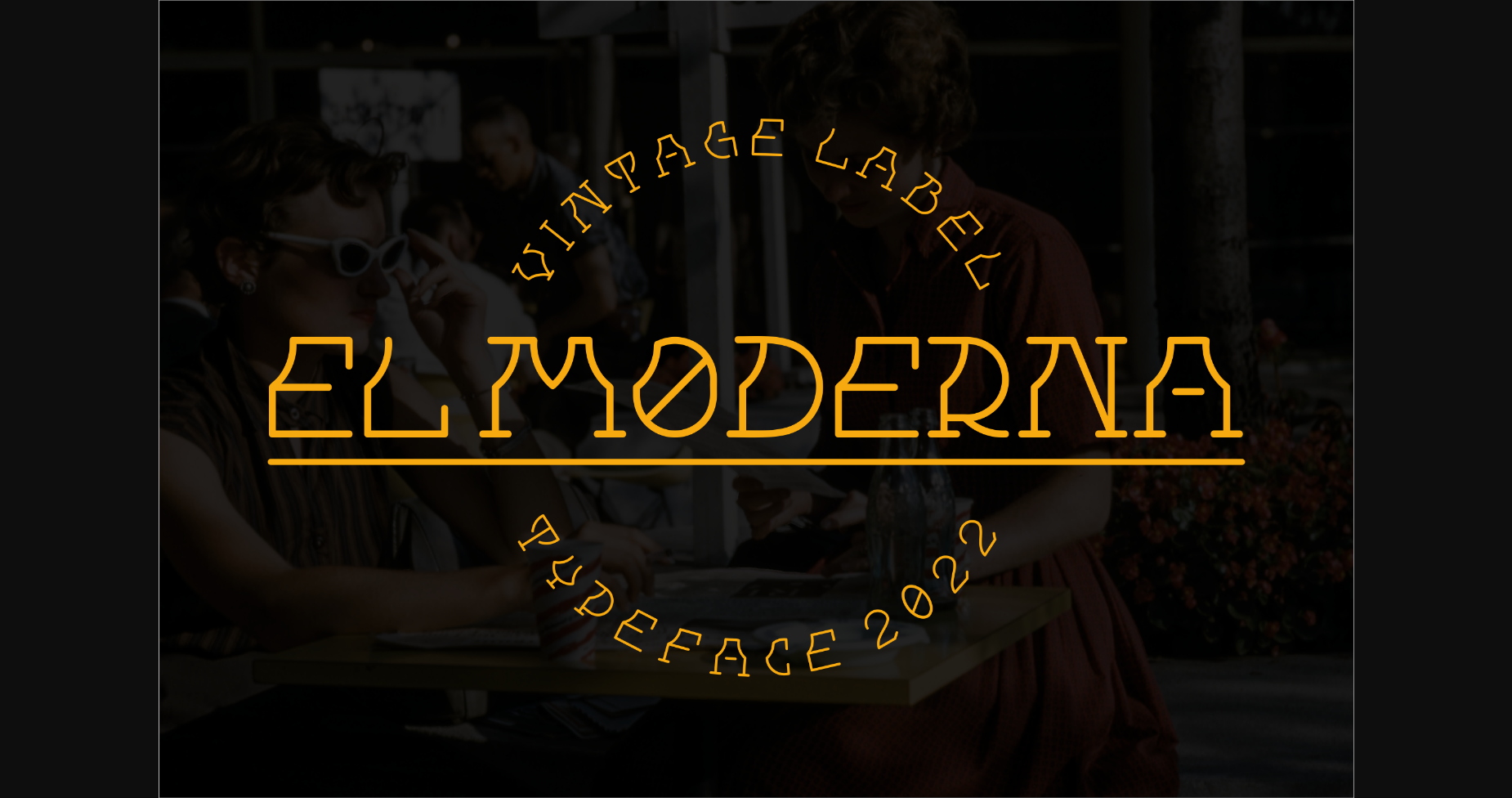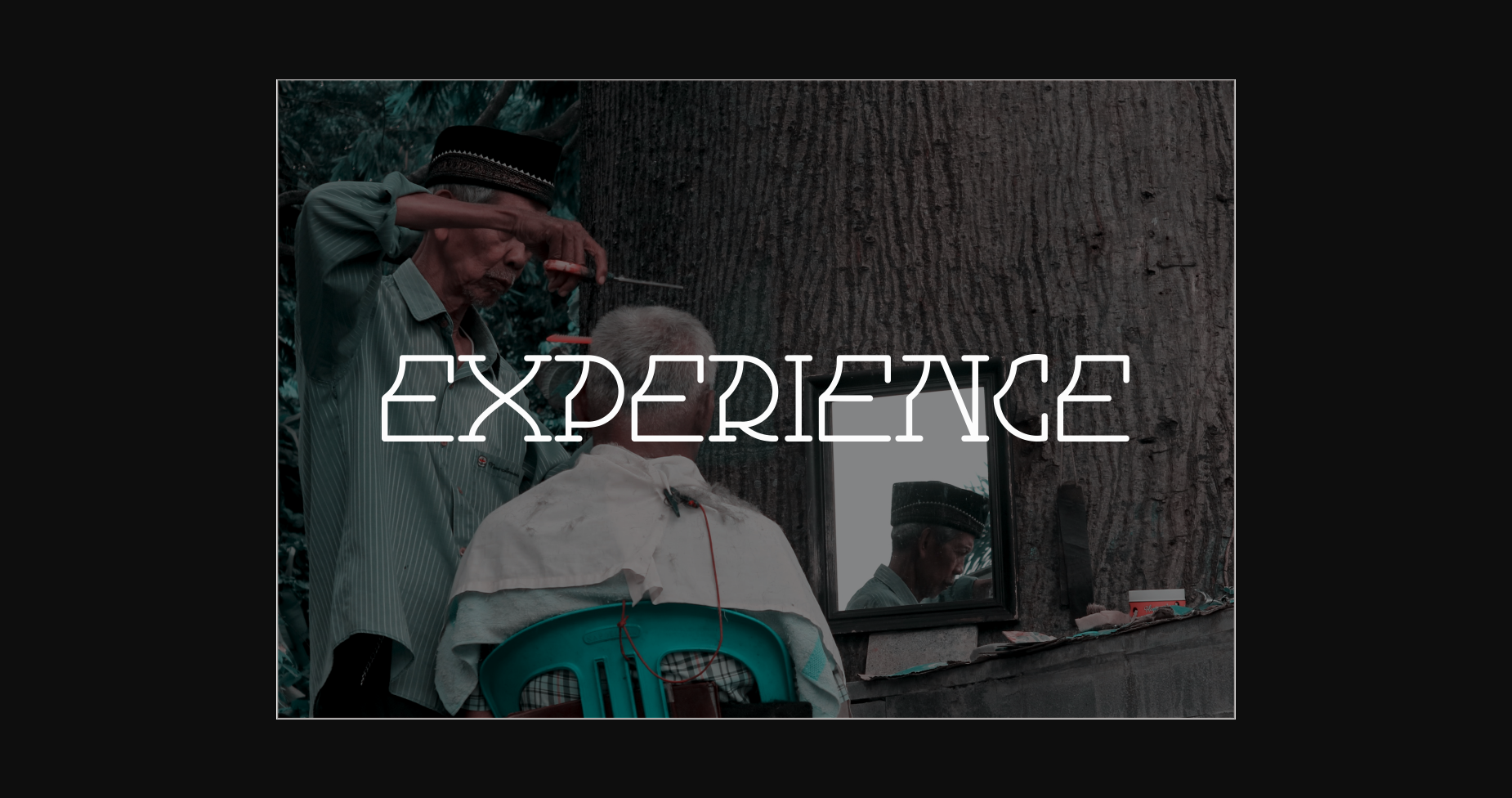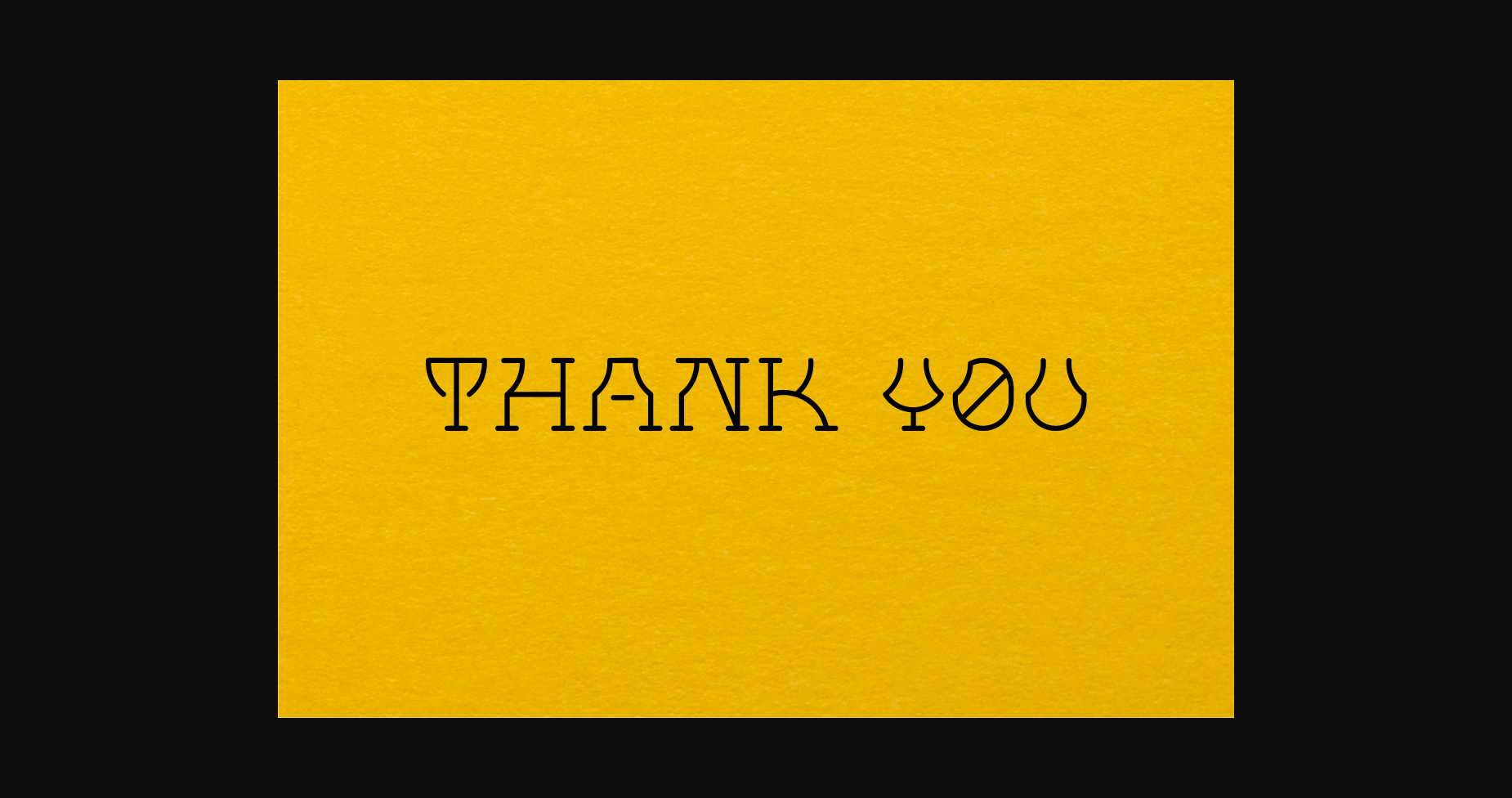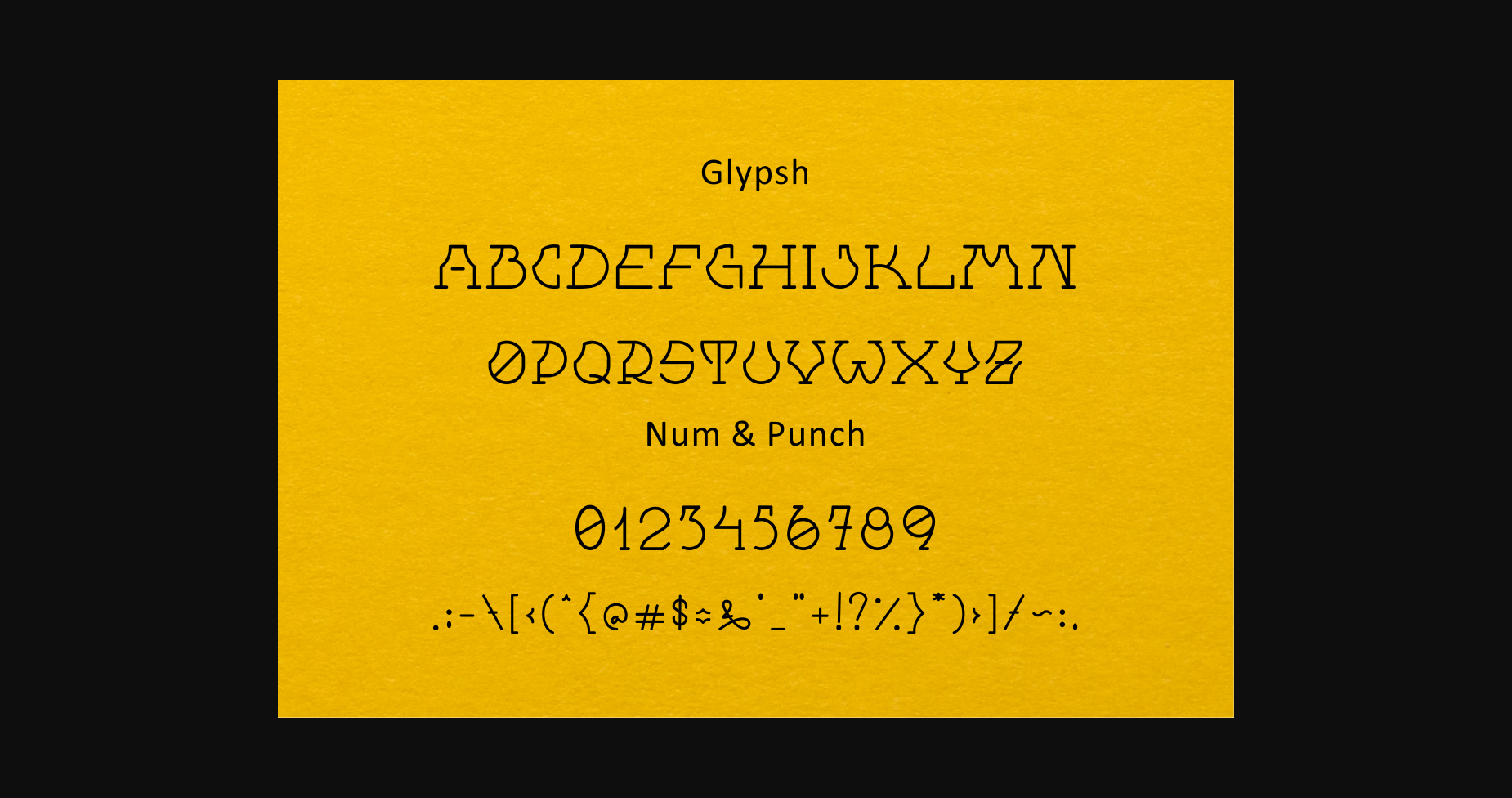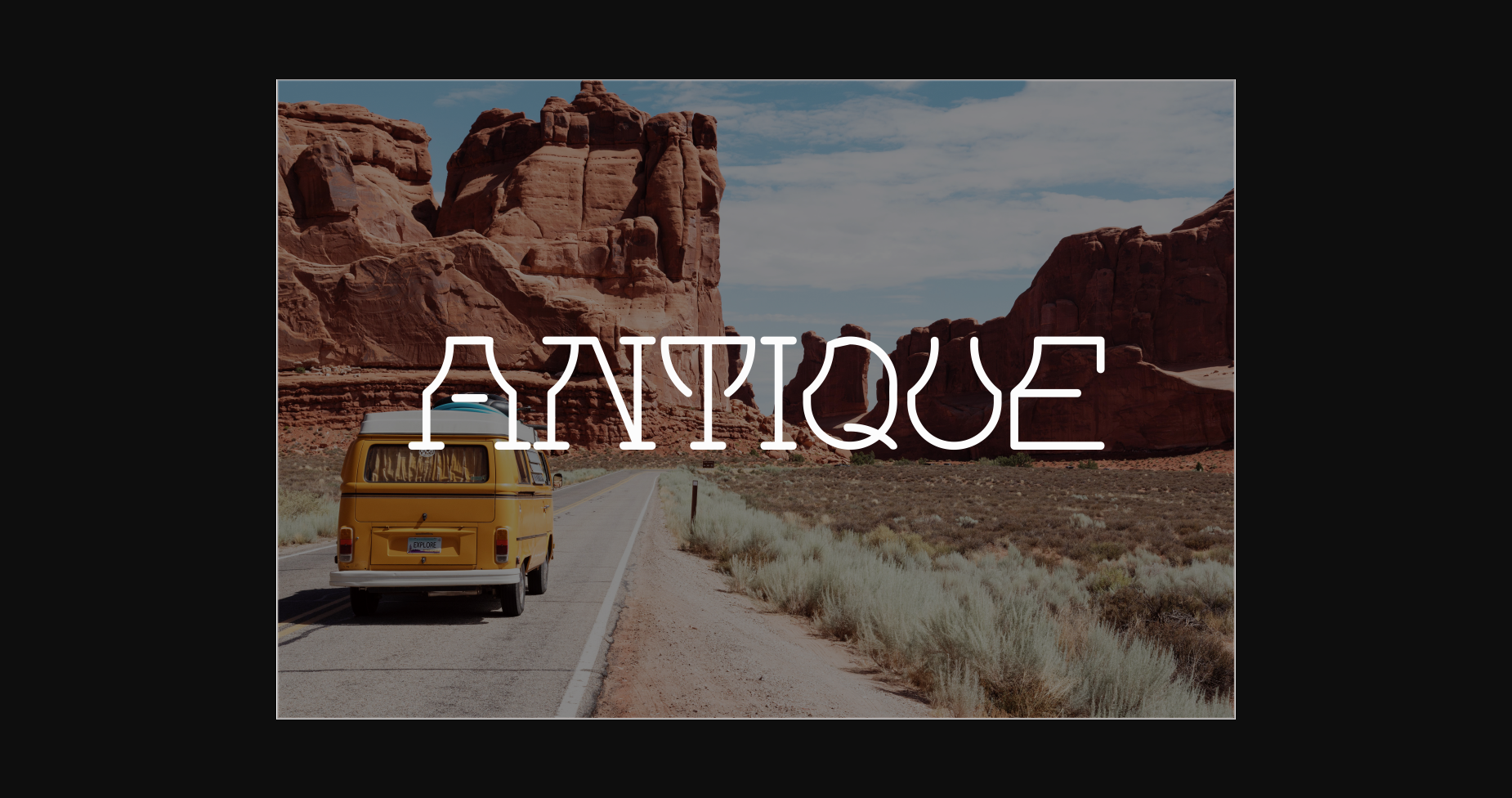
El Moderna Font
About El Moderna Font
El Moderna is a cool and incredibly stylish sans serif font. Whatever the topic, this font will be a wonderful asset to your font library, as it has the potential to enhance any creation.